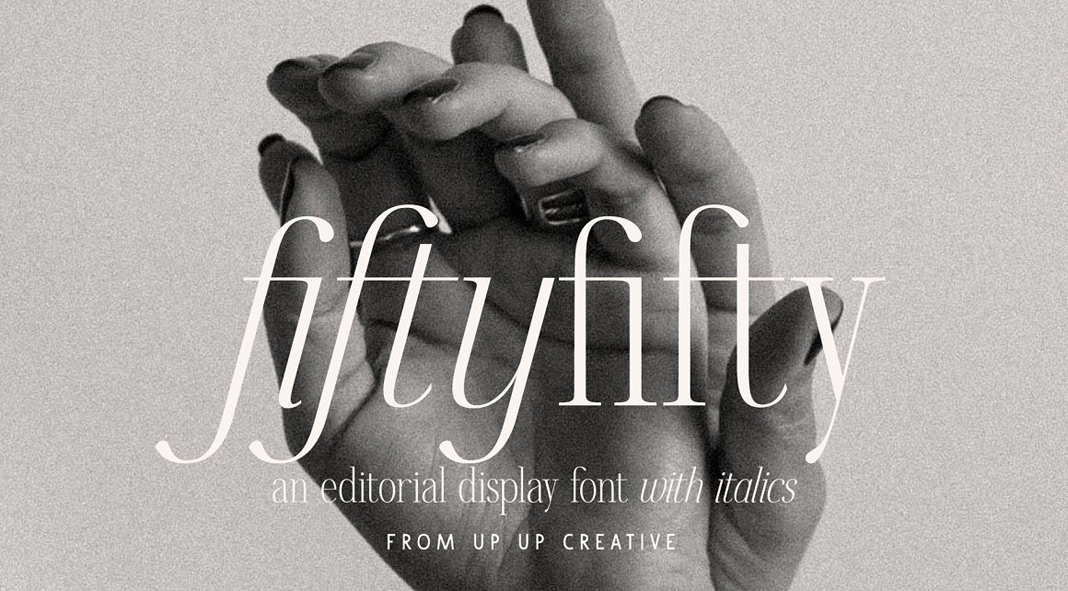
Discover Fifty Fifty, an elegant display serif font from foundry Up Up Creative.
The Fifty Fifty serif font consists of a regular and italic version. It is characterized by gently smooth curves and comes with more than 100 ligatures. The Fifty Fifty font is a great choice for a range of work including headlines, editorial design, monograms, branding, logotypes, and poster designs, just to name a few. It includes approximately 700 glyphs as well as 115 standard and discretionary ligatures. Additional OpenType features include character variants and stylistic sets The Fifty Fifty font supports multiple languages (including multiple currency symbols).